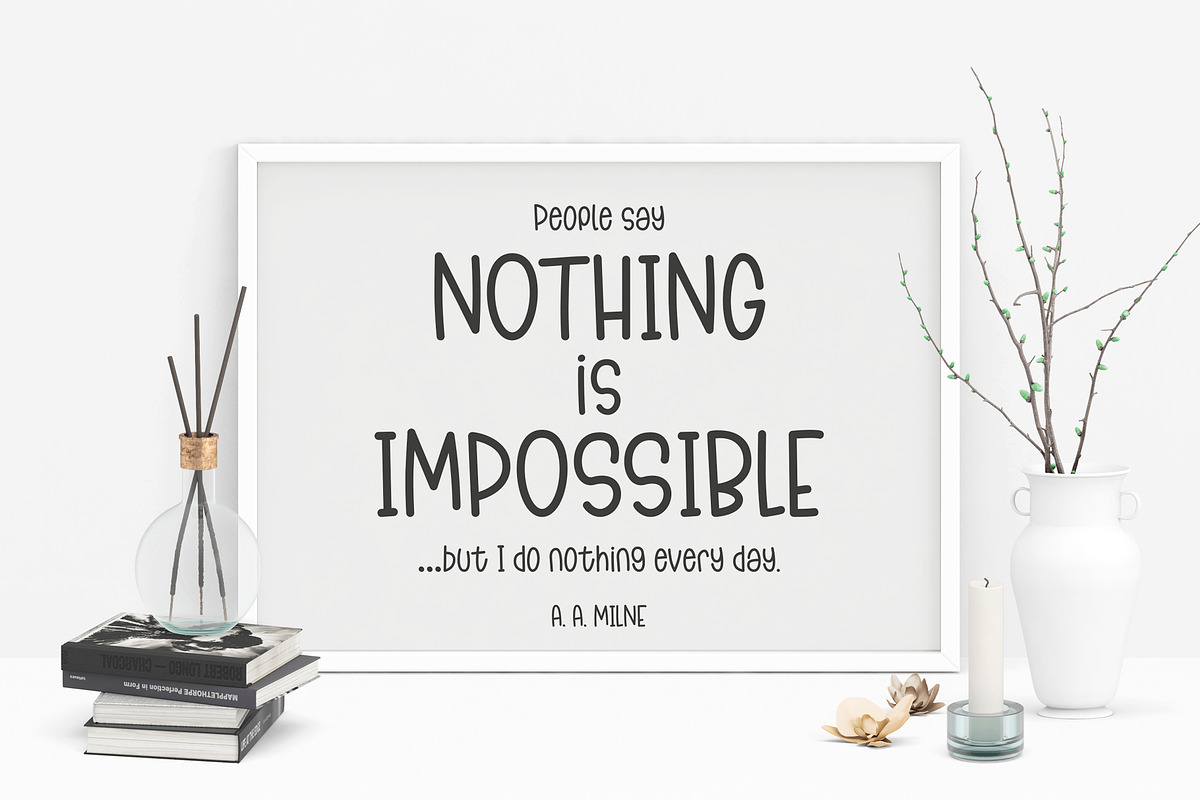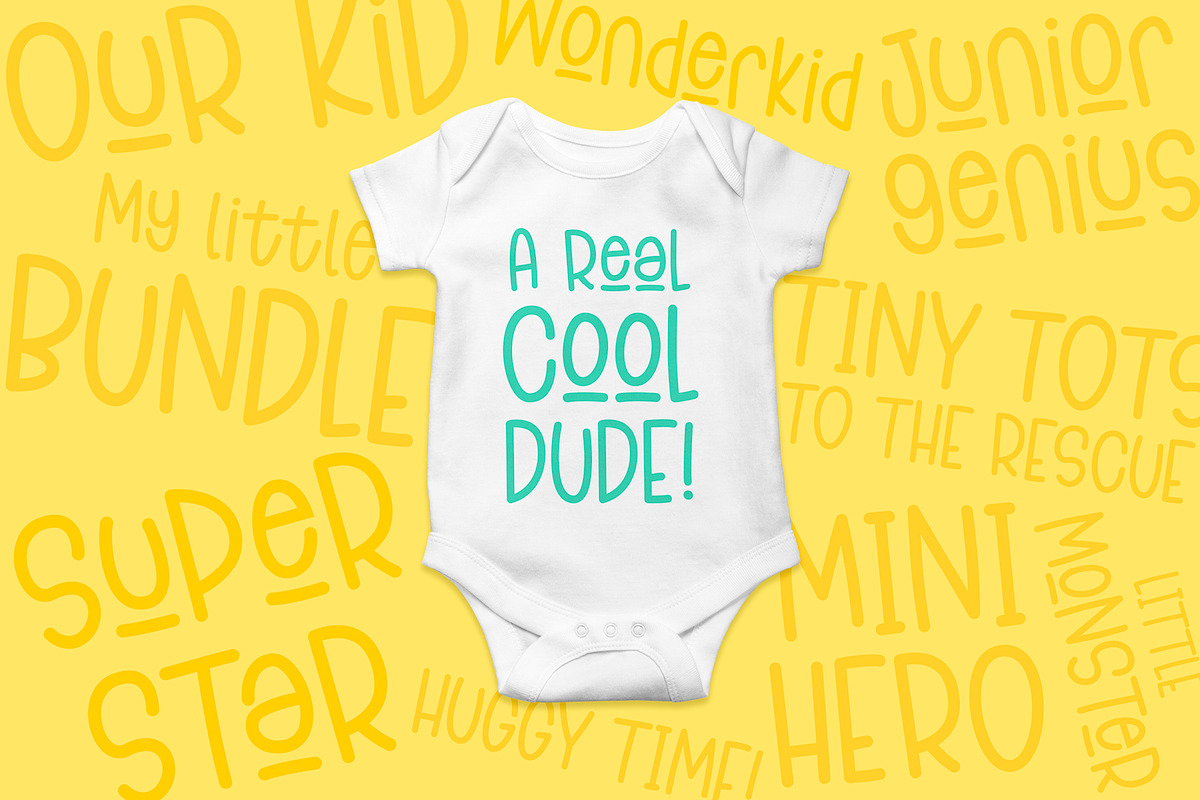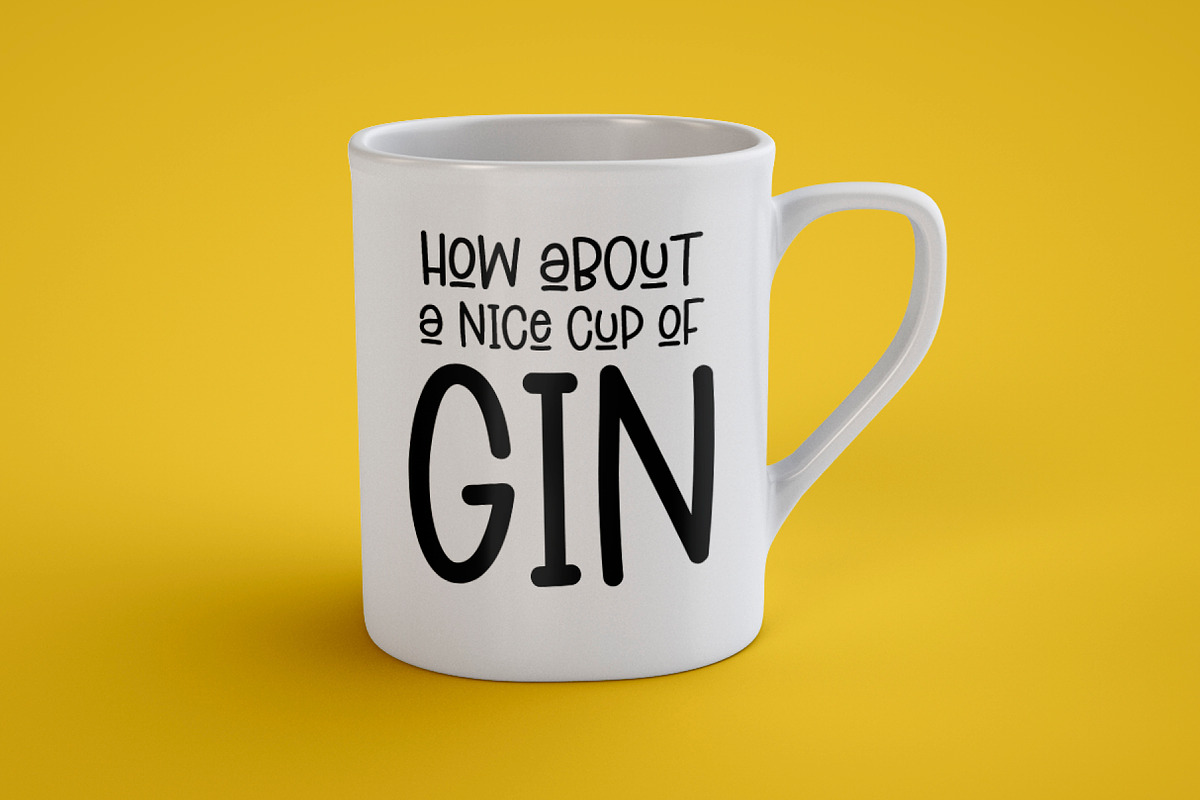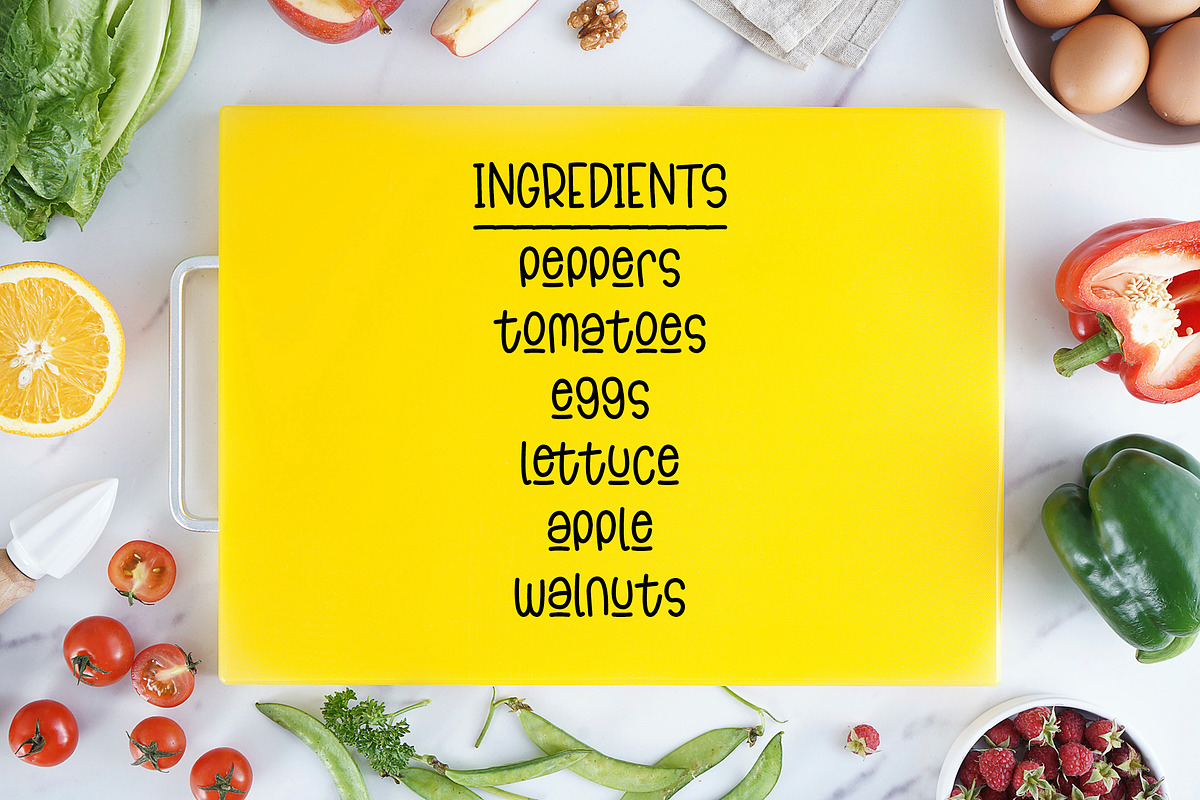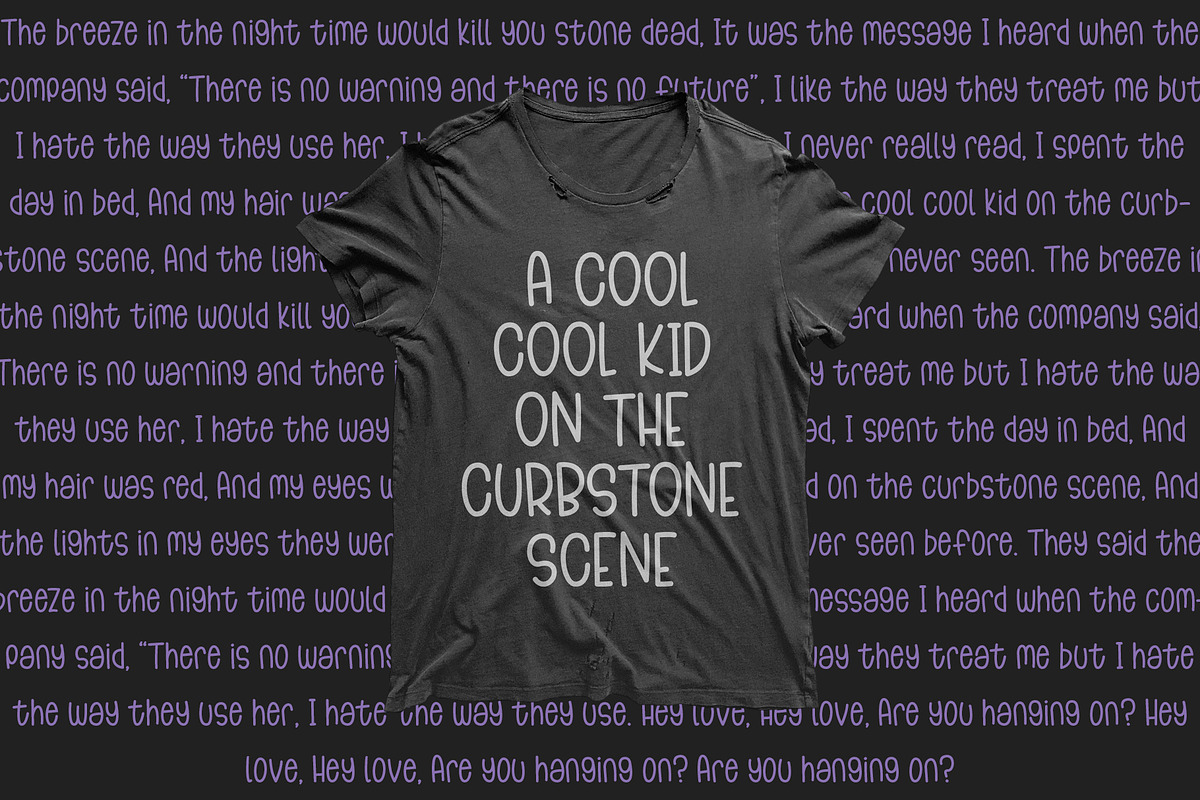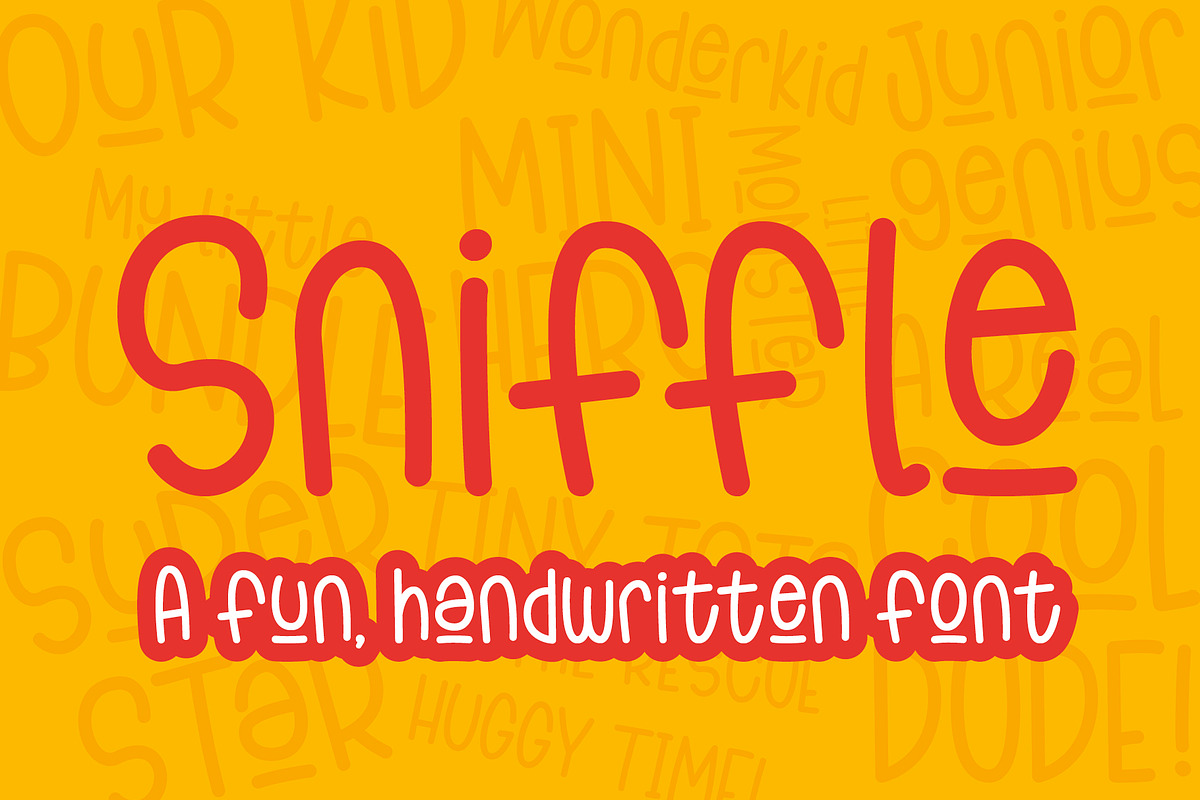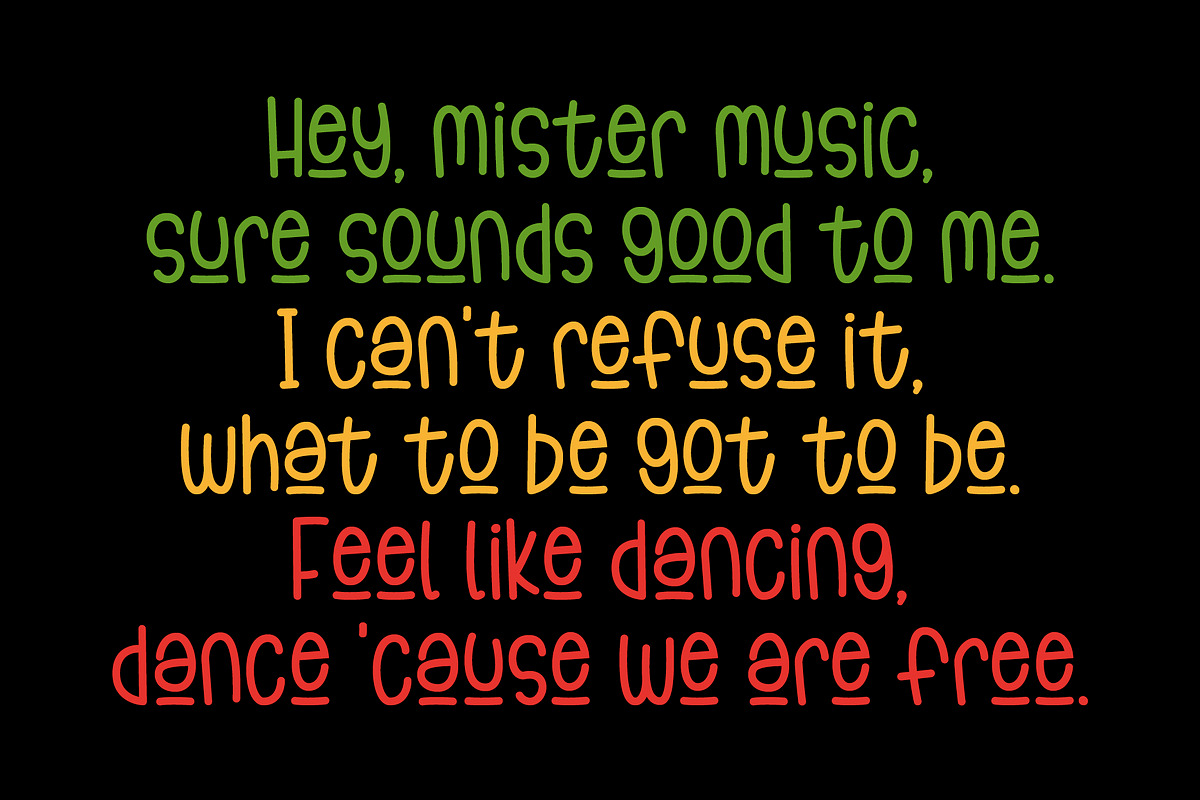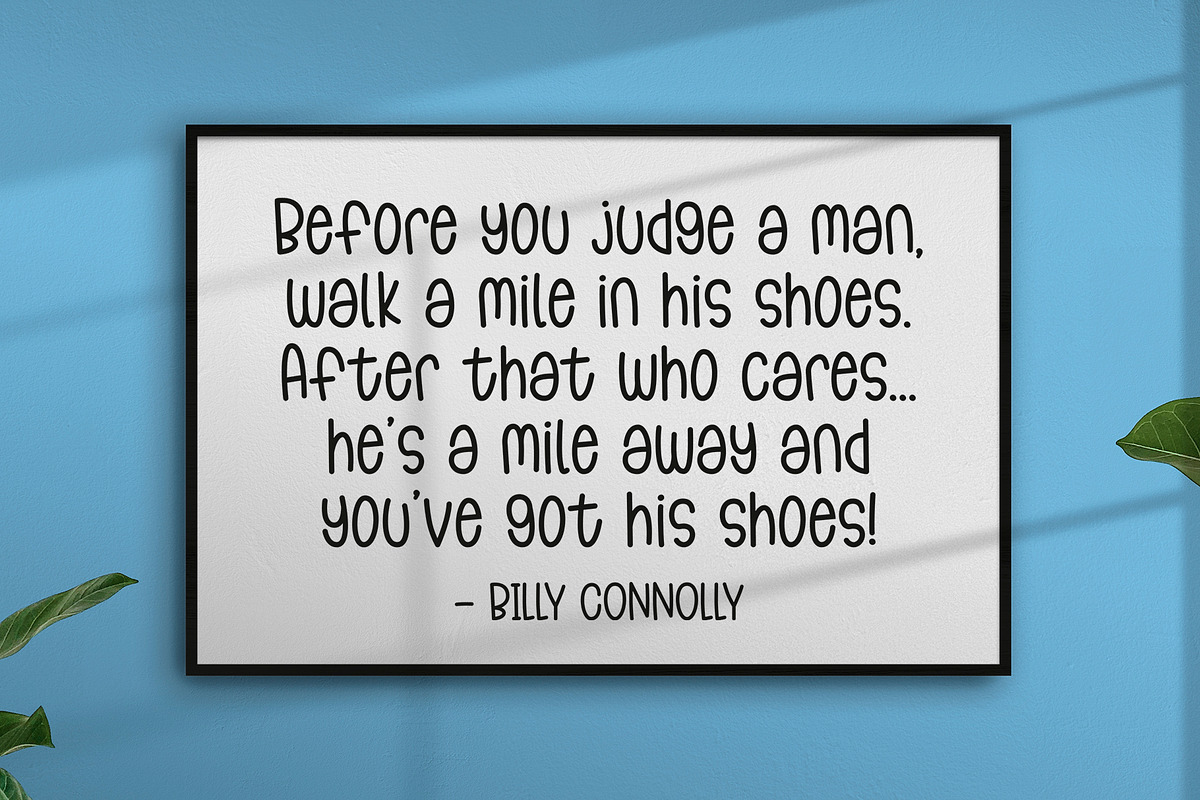
Sniffle - a fun handwritten font!
Sniffle - a fun and playful handwritten font.
A clean, smooth and simple handwritten font. Looks great on t-shirts, tumblers, mugs etc. Suitable for any fun designs. Ideal for quotes and children themed projects but also great for adding a bit of fun to more grown up designs. Very cute and ideal for crafters!
Over 350+ characters including optional glyphs. Full European language support.